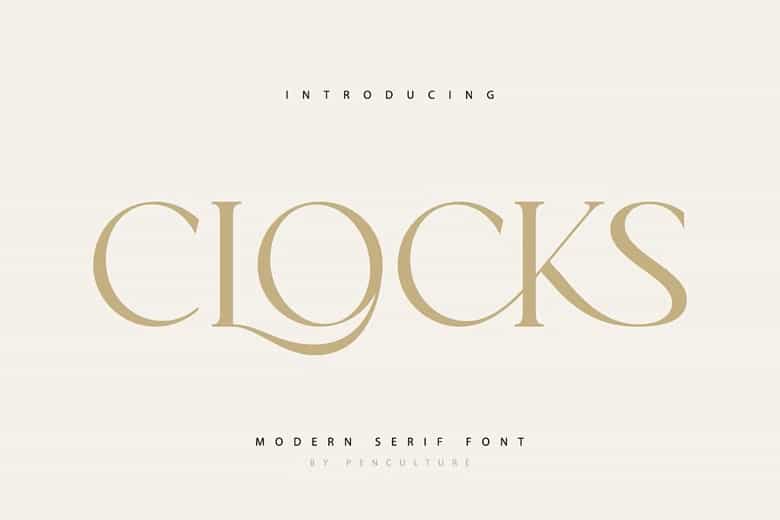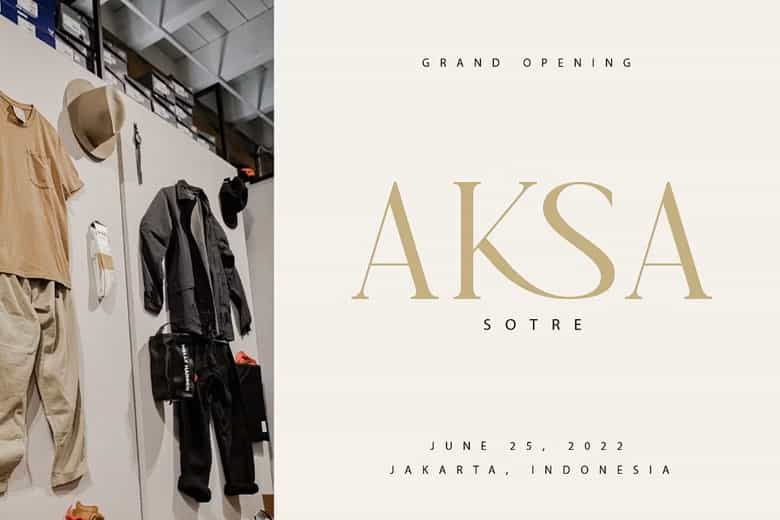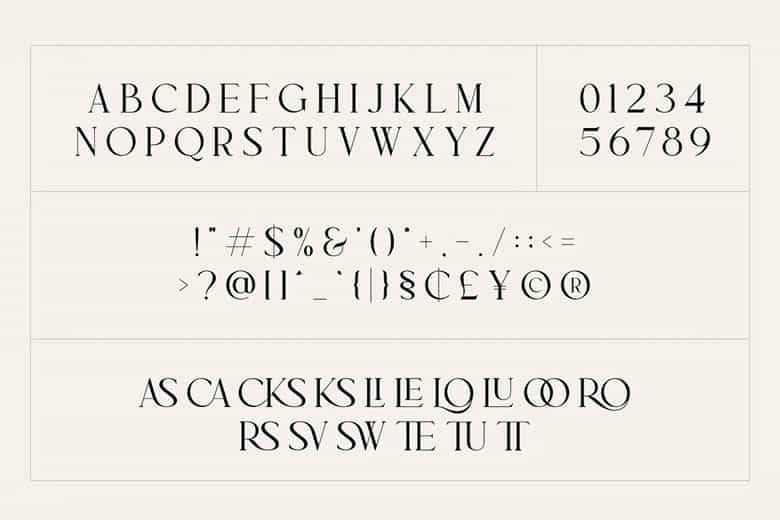
Clocks is an elegant serif typeface with modern lovely ligature. This font has authentic shape which is very suitable for various design projects such as branding, logo, fashion design and many others.